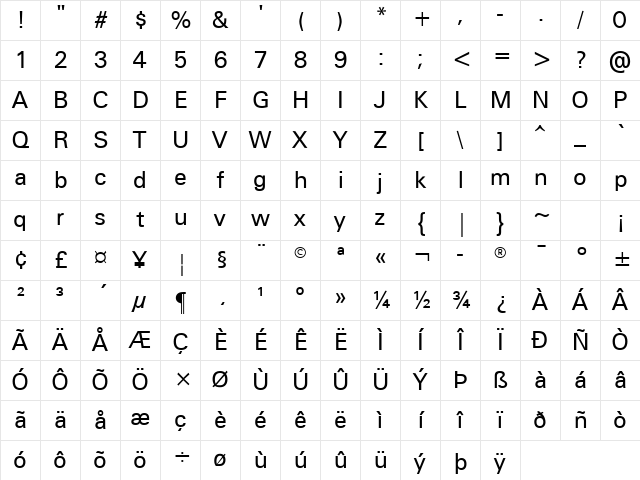
Black Dog 15 Regular
Black Dog 15 Regular Font Preview
Black Dog 15 Regular Uppercase Preview
Black Dog 15 Regular Lowercase Preview
Black Dog 15 Regular Numeric Preview
Black Dog 15 Regular Character Map
Complete Black Dog 15 Regular glyph index. Displaying only characters natively supported by Black Dog 15 Regular font.
Black Dog 15 Regular Character Map
Design Context for Black Dog 15
Black Dog 15 is a composed and adaptable typeface that performs quietly and consistently across a wide range of design contexts.
Pro Tip: Use Black Dog 15 in both headline and body roles to test its range before committing to a single application.